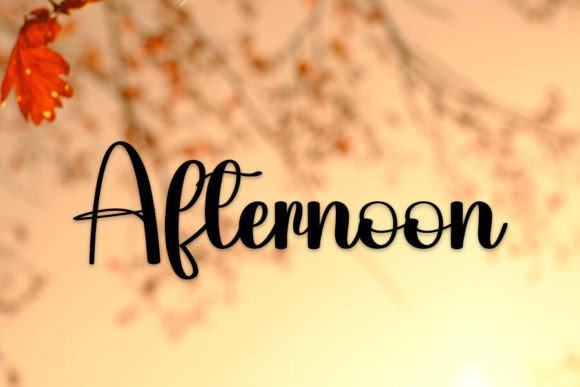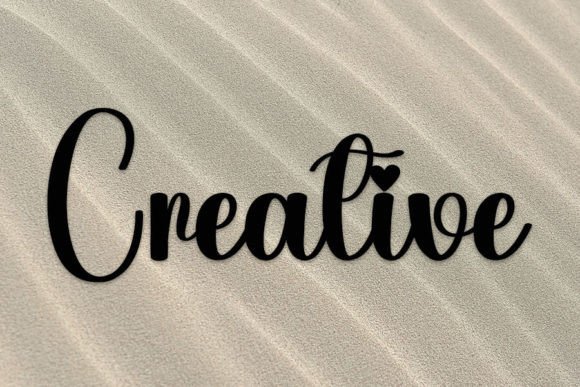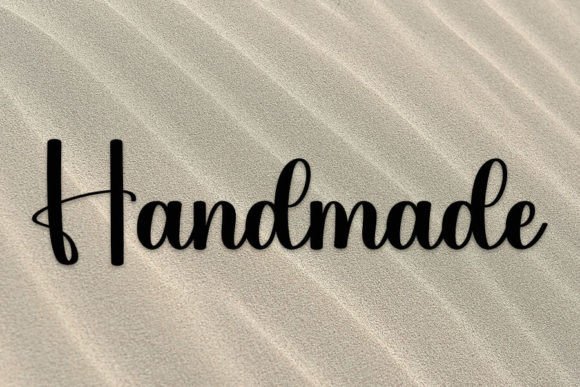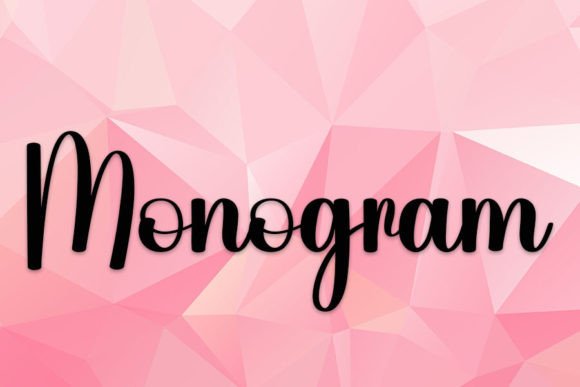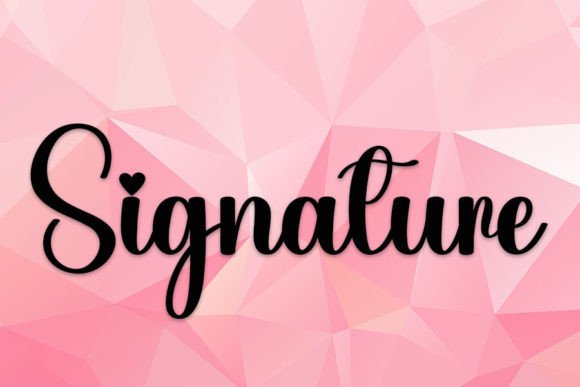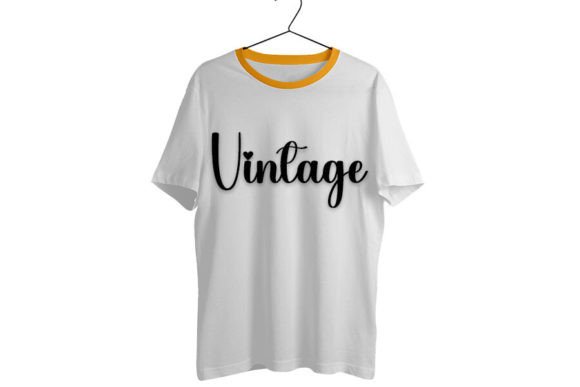
Brisely Font: Elevate Your Designs with Elegance and Timeless Style
Are you on the hunt for a font that exudes elegance, sophistication, and a touch of handmade charm? Look no further than Brisely Font, a stunning handwritten typeface that is sure to capture your heart. With its incredibly distinct and timeless style, Brisely is the perfect addition to any design project, from crafting and stationery to digital media and branding.
The Beauty of Brisely Font
Brisely Font is a neat and beautiful handwritten font, carefully crafted to bring an elegant touch to your favorite projects. Its unique and distinctive style sets it apart from other fonts, making it an excellent choice for designers and crafters looking to add a personal touch to their work. Whether you’re creating wedding invitations, business cards, or social media graphics, Brisely Font is sure to make your designs stand out.
Key Features of Brisely Font
- Elegant and Refined: Brisely Font boasts an elegant and refined aesthetic, perfect for designs that require a touch of sophistication.
- Handwritten with Love: This beautiful font is crafted with love and care, giving it a personal and human touch that sets it apart from machine-generated fonts.
- Distinct and Timeless: Brisely Font features an incredibly distinct and timeless style that will not go out of fashion anytime soon.
- Versatile: This versatile font can be used for a wide range of design projects, from print materials to digital media.
Why Choose Brisely Font?
So, why choose Brisely Font over other fonts? Here are just a few compelling reasons:
- Unique Style: Brisely Font offers a unique and distinctive style that will set your designs apart from the crowd.
- Ease of Use: This font is easy to read and works well in a variety of contexts, from large headings to small body text.
- High-Quality: Brisely Font is a high-quality font, carefully crafted to ensure that it looks great in any design.
- Perfect for Crafters: This font is perfect for crafters, designers, and DIY enthusiasts looking to add a personal touch to their projects.
In conclusion, Brisely Font is a beautiful and elegant handwritten font that is perfect for designers and crafters looking to add a touch of sophistication to their projects. With its unique and timeless style, Brisely Font is sure to become a favorite in your design toolkit. So why wait? Fall in love with Brisely Font today and start creating spectacular designs that will leave a lasting impression!